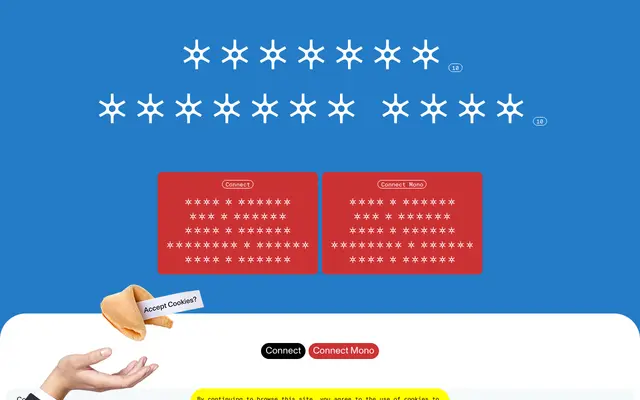
A dot font built on a grid of connector shapes, offered in five screw-head styles and claimed to be the world's first italic dot font.
Designed by a team at Dinamo, Connect uses a grid of dots shaped like common screw heads — Flat, Hex, Nail, Phillips and Torx — as its constructive unit. It comes in both proportional and monospaced versions, each with corresponding italics, making it an unusual entry in the dot-font genre. The family covers Latin Extended and Greek, with small caps, fractions and a full suite of symbols.
Built on a dot-grid system with screw-head-shaped dots, Connect is a display face defined entirely by its modular, grid-based construction. Its conceptual character and novelty place it firmly in the display category.